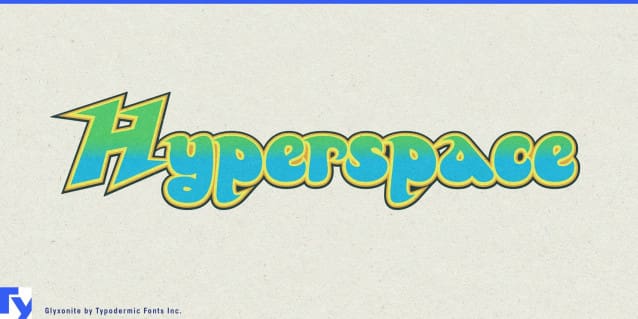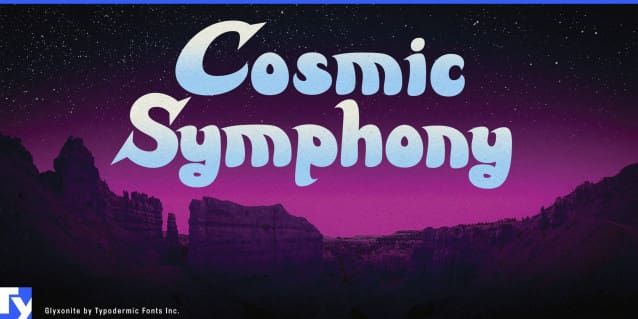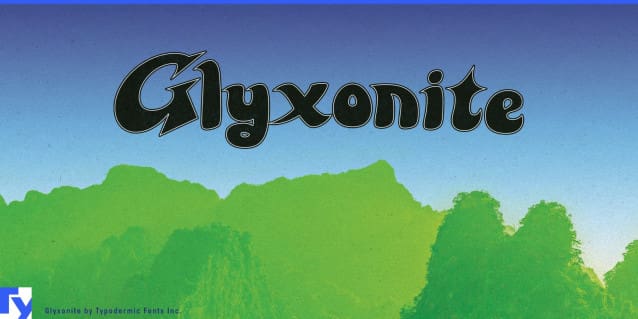
Glyxonite Display Font
Glyxonite Display Font, the typeface that weaves together the charm of arcade aesthetics with the sophistication of progressive rock. Drawing inspiration from Tadashi Yamashita’s Galaxian game logo—Glyxonite invites you on a bold, cosmic journey. It’s a gritty, neon-lit love letter to the era of coin-operated adventures and boundary-pushing music. Dare to be different. Embrace the lowbrow charm, the nostalgia, the innovation. With Glyxonite, let your words take center stage in a universe of your own making.